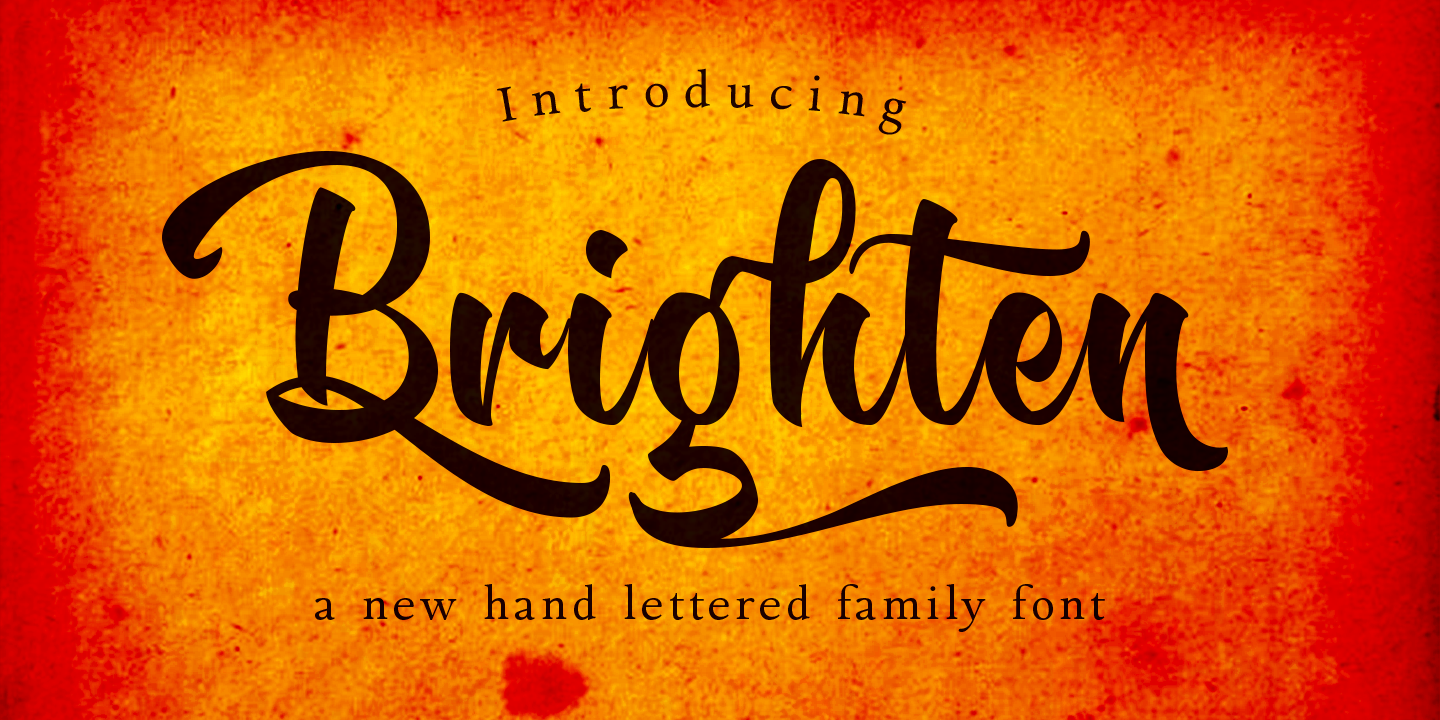
Brighten Font is an effervescent, cheerful, and incredibly charming typeface, perfect for designs that aim to convey joy, optimism, and a lighthearted spirit. Imagine it bringing a sunny disposition to children's book covers, adding a vibrant touch to lifestyle blog headers, or giving a playful, inviting feel to local cafe menus. It’s an exceptional choice for designing cheerful greeting cards, crafting engaging social media graphics, personalizing delightful product packaging, and enhancing any project where a sense of warmth, approachability, and youthful energy is desired. Its friendly curves and open forms make it suitable for anything from educational materials to festive event invitations, adding an immediate sense of happiness and positivity.
What makes Brighten Font truly exciting is its remarkable ability to infuse a design with an undeniable sense of cheerfulness and unpretentious charm. It possesses an inherent luminosity and fluid grace that feels genuinely optimistic and inviting. Designers are often drawn to its gentle bounce, soft edges, and the subtle imperfections that give each character a unique, handcrafted appeal. It’s a font that communicates with sincerity, warmth, and an infectious positivity, ensuring your message feels uplifting and memorable. Brighten Font brings a refreshing, amiable quality to your designs, allowing them to connect with audiences on an emotional level through sheer visual delight.
The Brighten Font family typically offers a range of styles and features that enhance its versatility for various creative applications. While specific family members might vary, you can often expect a delightful Regular weight that embodies its signature cheerful spirit. Many Brighten Font families also include a variety of stylistic alternates, ligatures, and sometimes even unique glyphs that allow for extensive customization and truly bespoke typographic compositions. These additional features enable designers to create highly personalized text, ensuring that Brighten Font can adapt to intricate design requirements while maintaining its charming, expressive character across various applications and sizes.